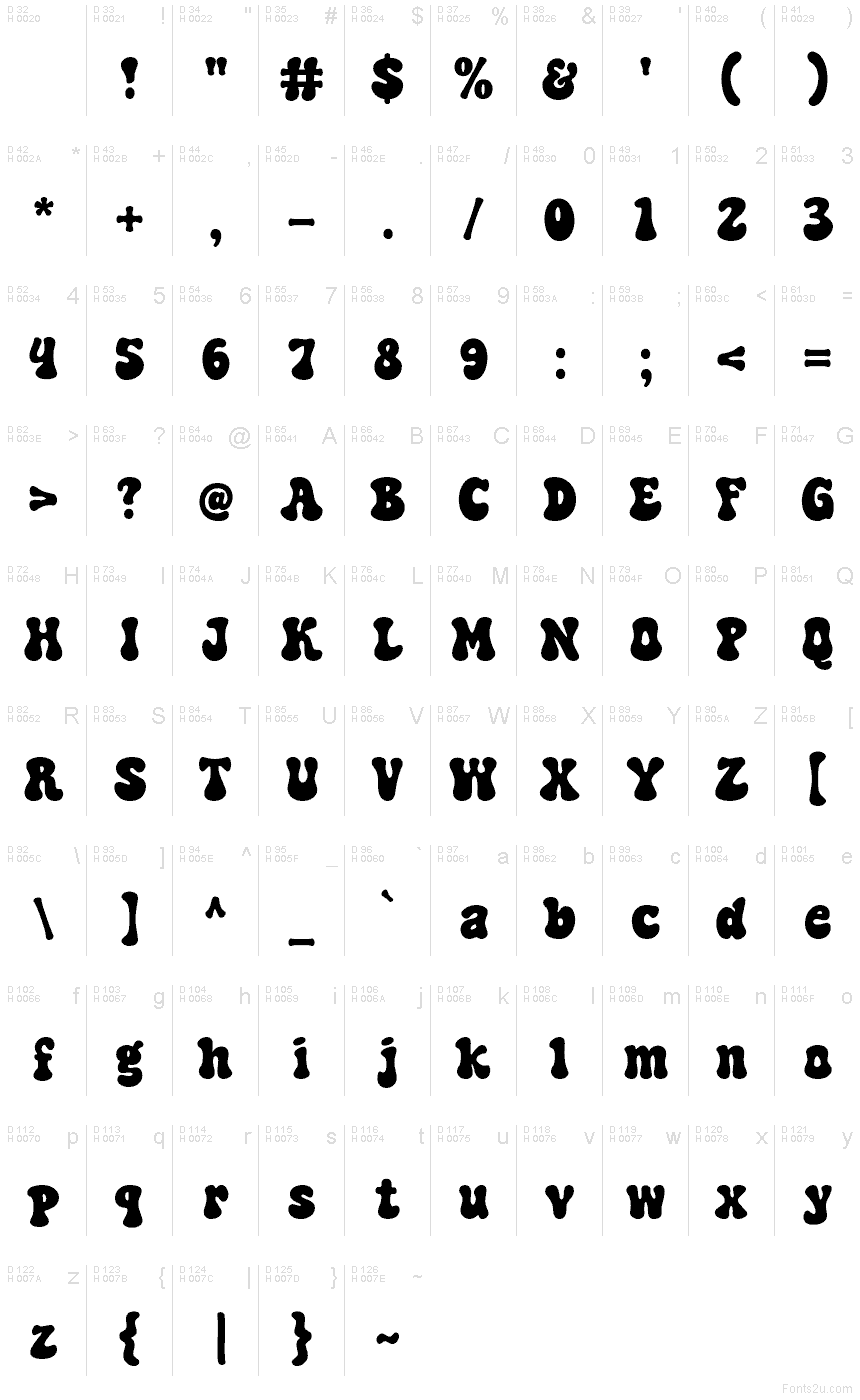
Super Maples
Super Maples font by fsuarez913 is a free bold groovy display font. It stands out with syrup-thick curves and pillowy blobs that swell and taper like inky droplets, giving words a bouncy, almost gooey silhouette. The heavy, rounded edges and cushioned spacing lock letters into chunky, high-impact wordmarks that feel playful without losing legibility.
Using Super Maples, headlines pop on posters, festival signage, candy or snack packaging, kids’ branding, retro music covers, and cheerful social graphics. This free font thrives at large sizes where its smooth, blobby rhythm can breathe. Pair it with a thin geometric sans or a clean condensed serif for body copy, and add a touch of tracking to keep the forms extra readable.